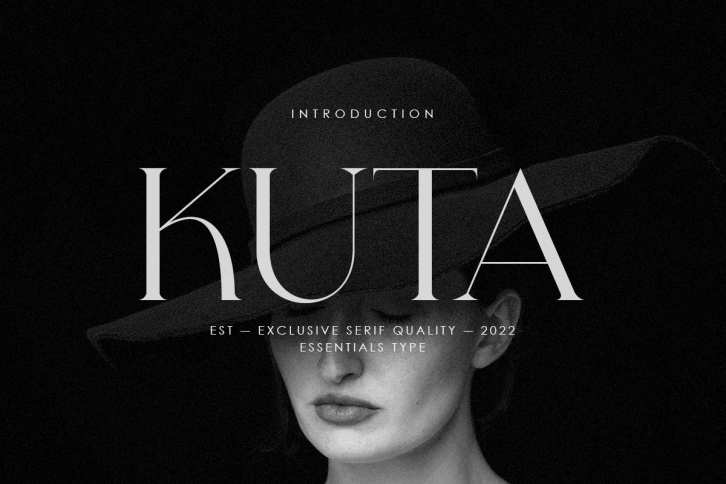
Kuta is a gorgeous font that was realeased on August 21, 2022. The font can be used in many style contexts and design environments. Perfect for invitations, magazines, websites, logos, and more! It was designed by Gholib Tammami and the file size is 12.40 MB. Thanks for checking out this font!